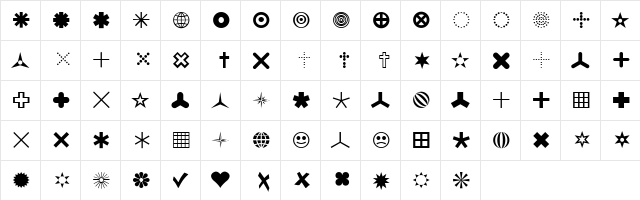
FFDingbats Regular
Design Context for FFDingbats Typeface
FFDingbats is a composed and adaptable typeface that performs quietly and consistently across a wide range of design contexts.